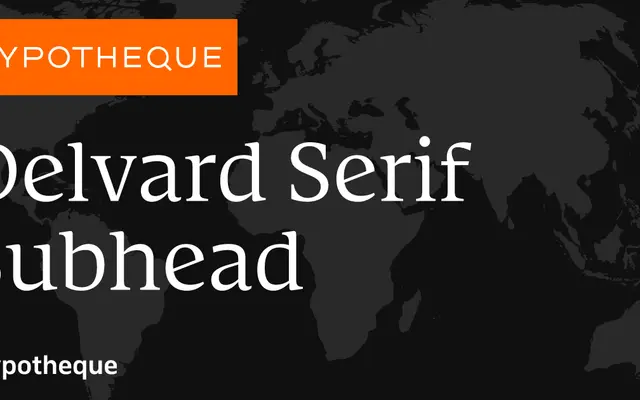
Delvard Serif Subhead
Delvard Serif Subhead specimen from Typotheque
An optical-size serif from Typotheque, offered in Display, Subhead and Text cuts across four weights with matching italics.
Part of the Delvard Serif system, the Subhead cut sits between the finer Text and the larger Display variants, optimised for intermediate heading sizes. Four weights run from Regular to Bold, each paired with an italic, giving editors a workable range for structured typographic hierarchies. A variable version of the Text cut is also available, extending flexibility across the weight axis.
A contemporary serif designed in optical sizes including Display, Subhead and Text variants, suggesting a text-optimised serif with classical structure adapted for editorial hierarchies.